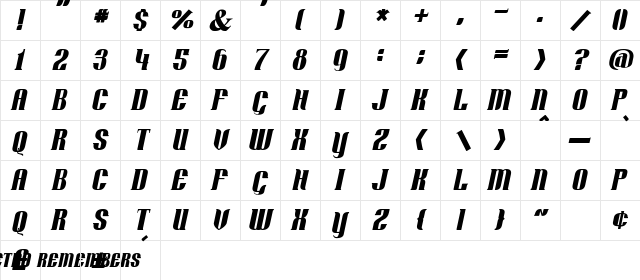
Retro Remembers Italic
| Designer | Joseph Dawson |
Design Context for Retro Remembers Typeface
Retro Remembers wears its vintage influences proudly, with letterforms that recall mid-century signage, classic packaging, and nostalgia-driven design. Its italic angle brings a sense of urgency and motion to the letterforms.
Font Pairing: Combine Retro Remembers with a simple slab or neutral sans — period-accurate companions reinforce the vintage feel without competing for attention.
Pro Tip: Lean into Retro Remembers's period character by pairing it with aged paper textures, muted colour palettes, and vintage illustration styles.